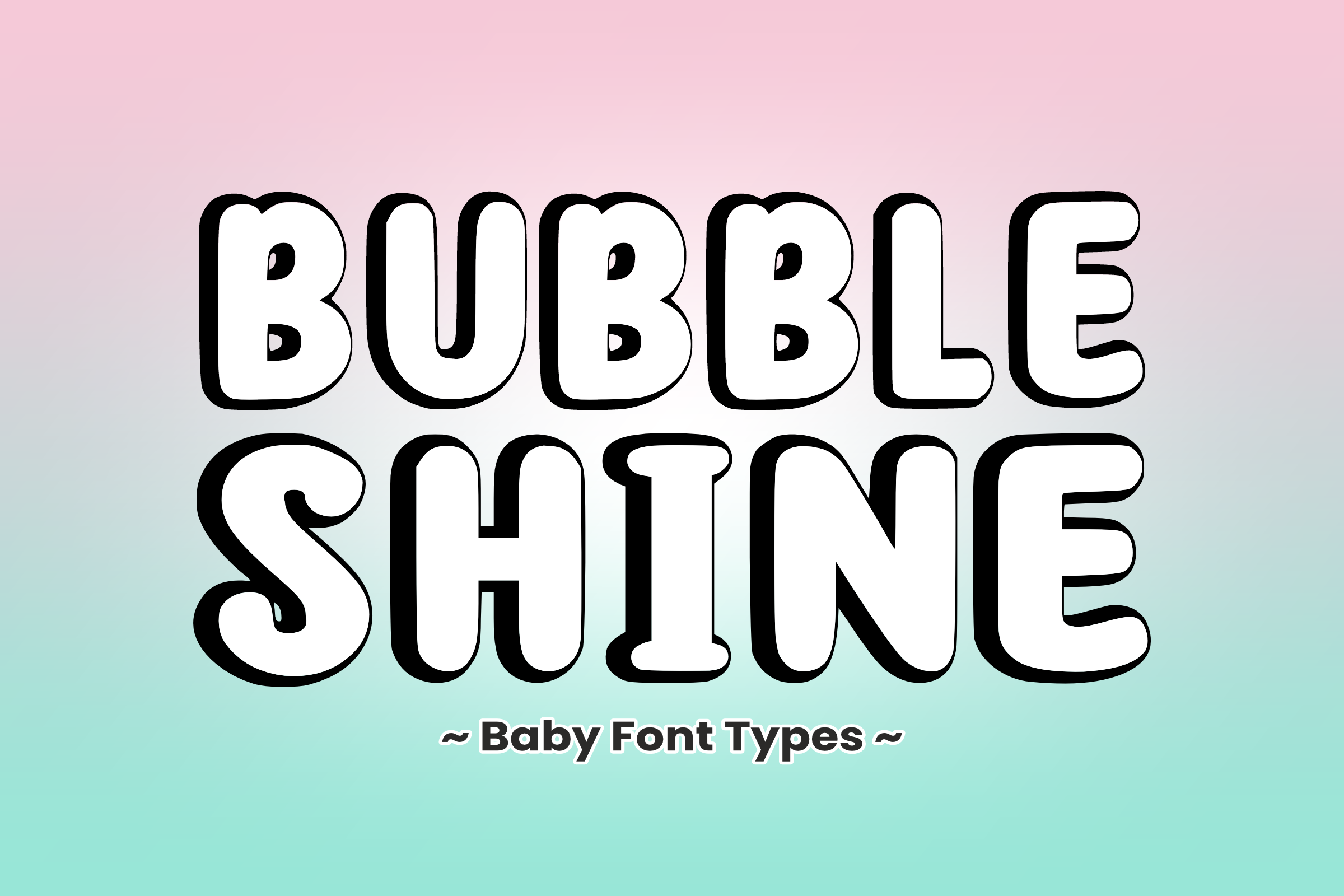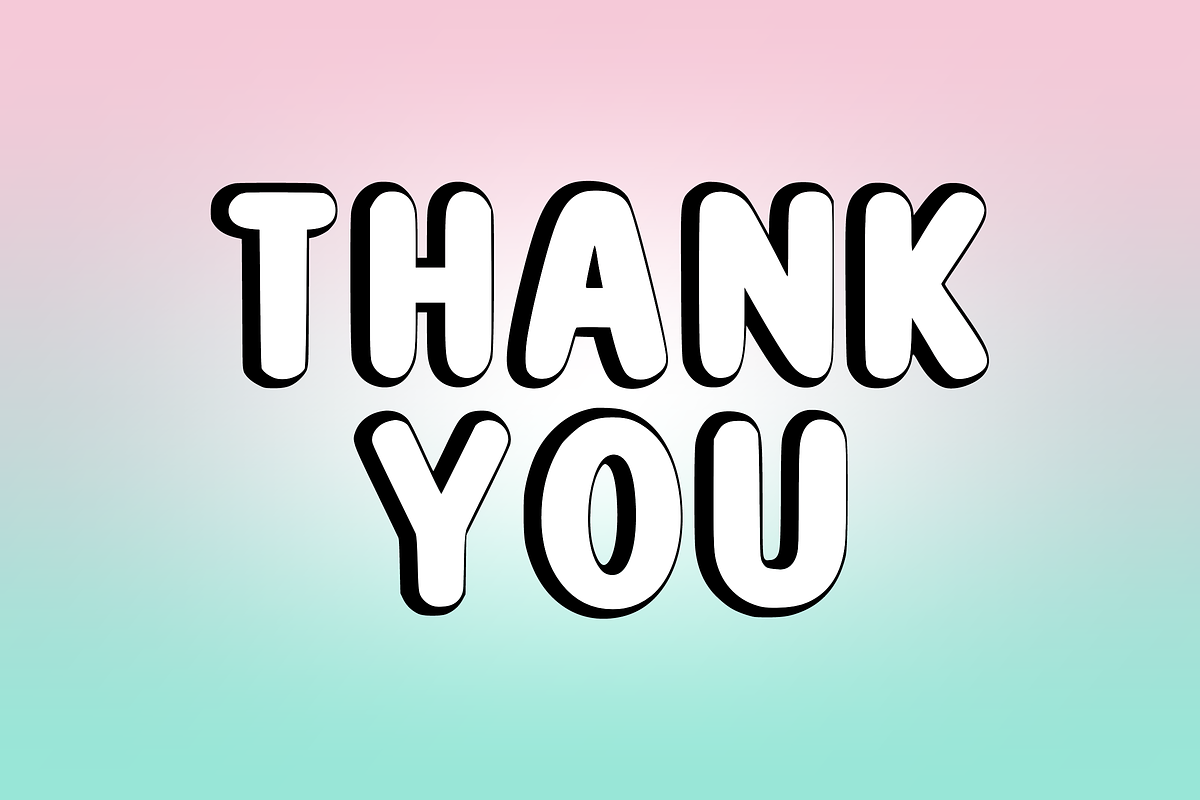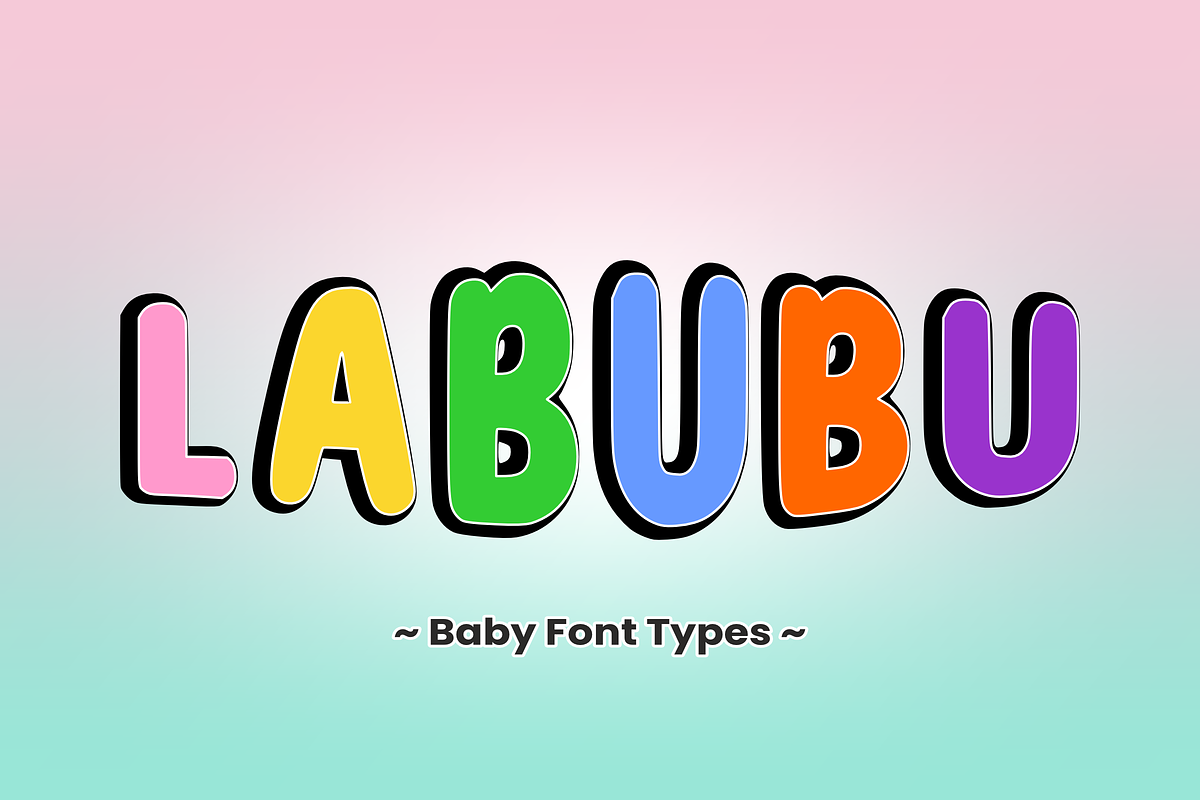
Bubble Shine - Playful Baby Font
Add a sweet, joyful lift to your designs with Bubble Shine! This ultra-chunky, puffy display font features smooth rounded shapes paired with a bold, striking 3D drop-shadow effect. It’s the perfect choice for creating standout crafts, cheerful children's merchandise, and playful branding that feels warm, friendly, and completely adorable.
Whether you're crafting custom stickers, designing nursery decor, or putting together a festive birthday invite, Bubble Shine delivers excellent legibility and effortless cutting-machine performance. It is fully optimized for smooth rendering across all major creative software and professional printing setups.
All-Caps Character Set (Chunky, pillowy uppercase letters with a bold 3D shadow style)
Numbers & Simple Punctuation (Essential, clean symbols included)
Nursery Wall Art, Baby Shower Invites, & Kids’ Birthday Banners 🍼
Cricut, Silhouette, & DIY Cute Crafting Projects ✂️
Custom Die-Cut Stickers, Planners, & Playful Merchandise Design 💖
Children's Book Covers, Kindergarten Logos, & Teacher Resources 📚
Toddler Apparel Prints, Baby Onesies, & Sweet Product Packaging 👕
High-Impact YouTube Thumbnails & Cheerful Social Media Graphics ✨